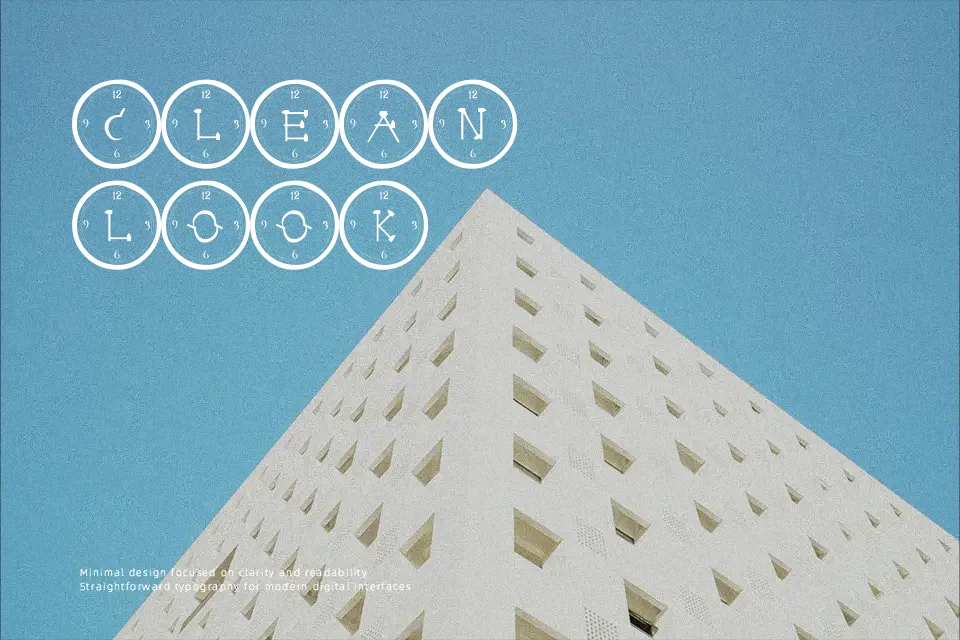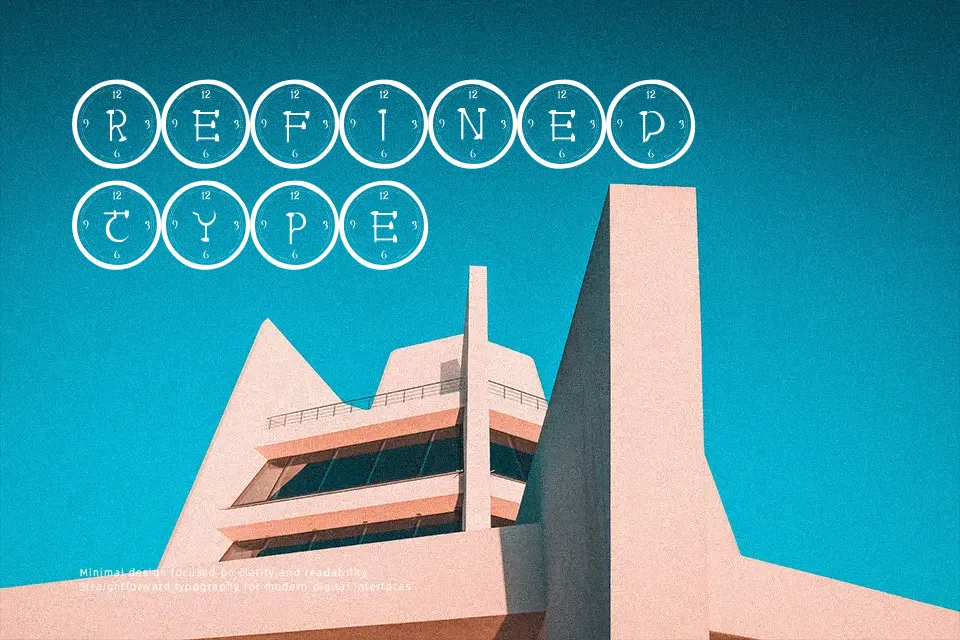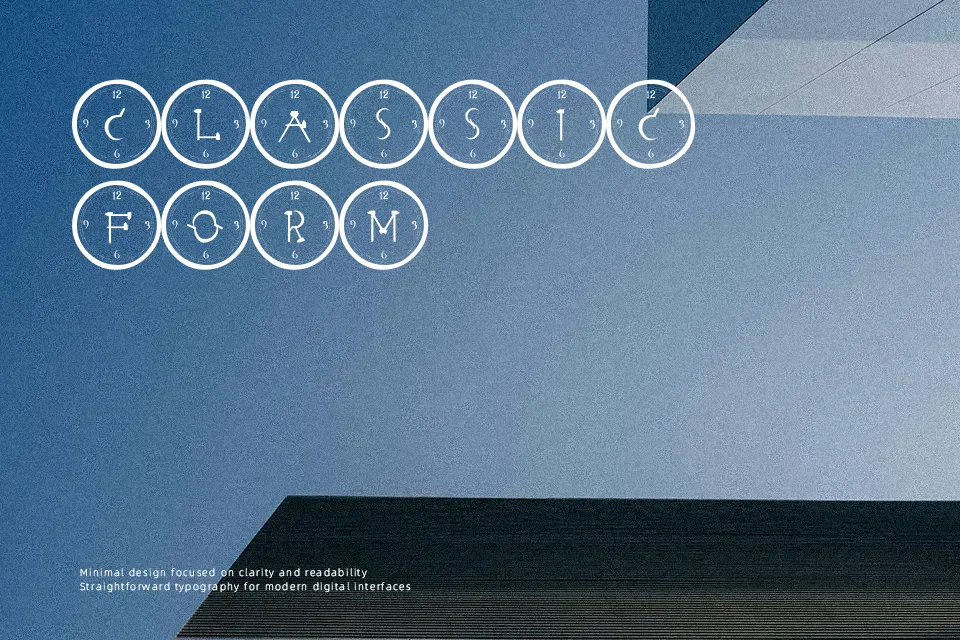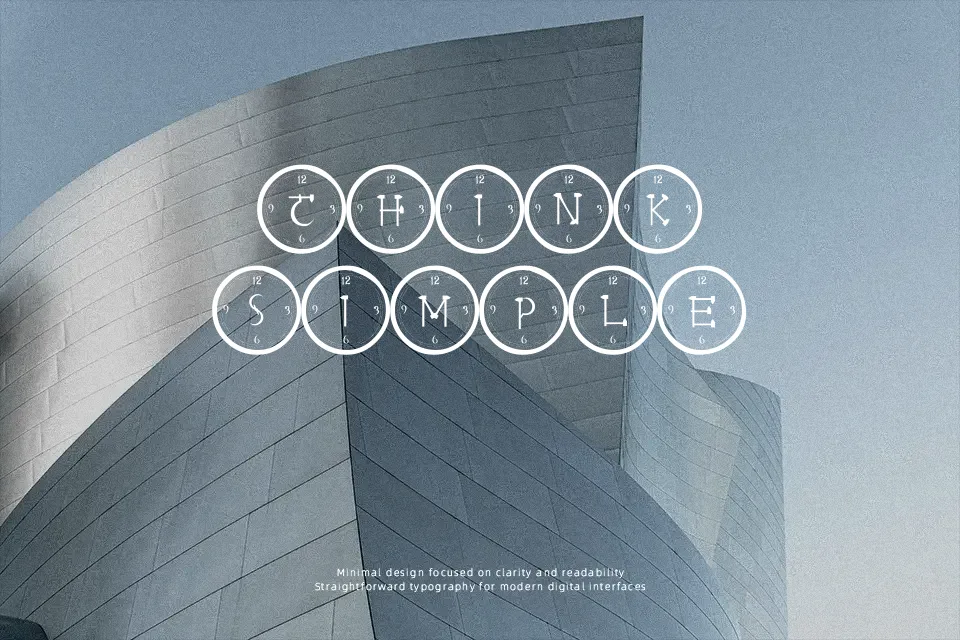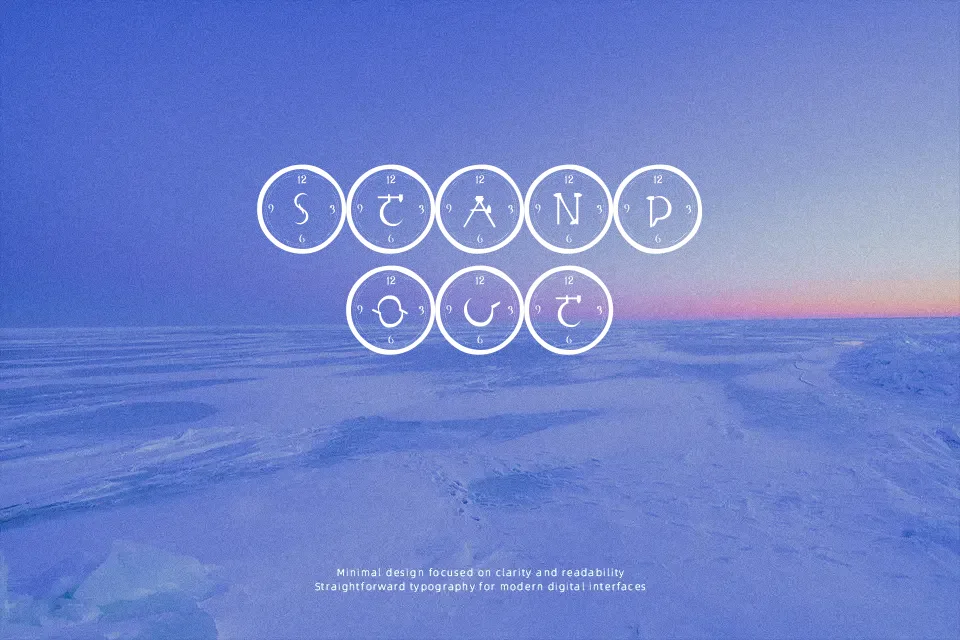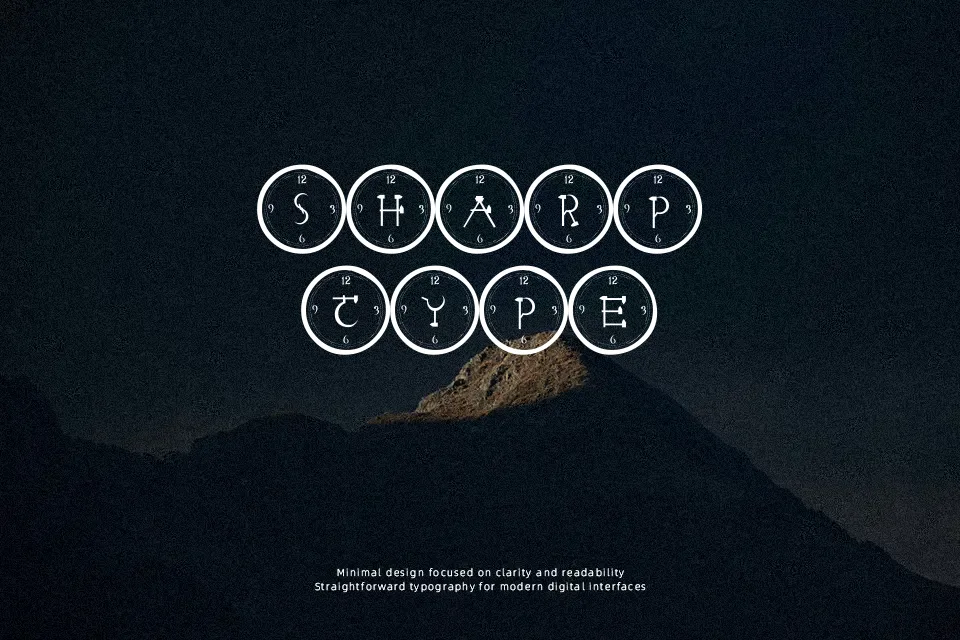
101! Clock Face Font
Designed by Nght Place
Built around the visual language of clock faces, this font translates dial numerals into a full display typeface with rigid, structured strokes and a distinctly mechanical rhythm. The letterforms carry a retro-industrial feel — tight, purposeful, and slightly quirky — making it a functional choice for game UI headers, novelty product labels, or themed event posters where the time-motif reinforces the concept. Spacing is fairly uniform, which helps short display lines read cleanly. That said, the novelty wears thin fast: anything beyond headlines or short callouts risks feeling gimmicky rather than intentional. Works best when the clock or time theme is baked into the project itself — outside that context, the concept loses its footing.
– Retro-themed game UI headers
– Novelty product packaging and labels
– Time-related event posters or countdown displays
– Escape room or puzzle game branding
– Body text or extended reading
– Corporate or professional branding
– Projects without a clock or time-related theme
– Multilingual or symbol-heavy layouts
Perfect for gaming, headline, and packaging, with a classic and decorative style.